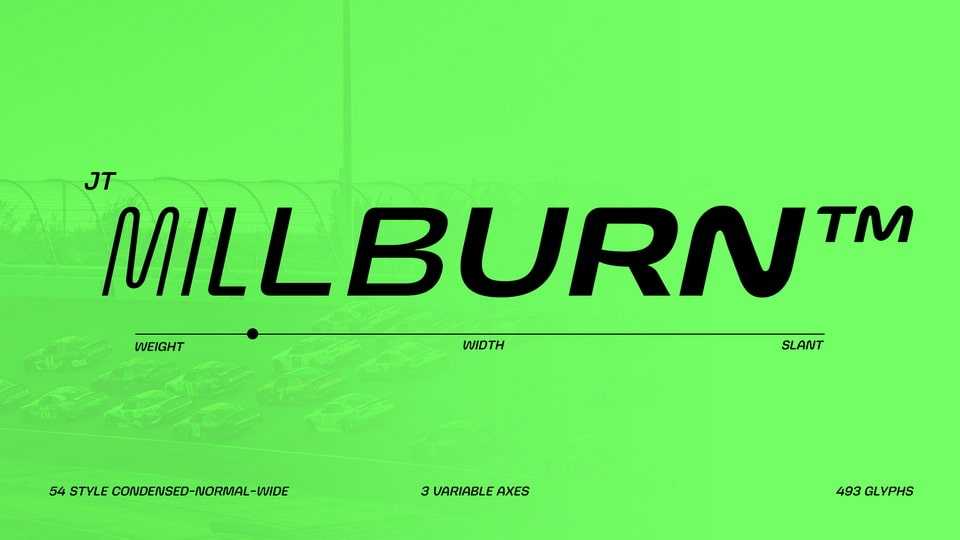
Download JT Millburn font, a dynamic variable typeface inspired by the precision and speed of motorsport aesthetics and designed with versatility in mind.